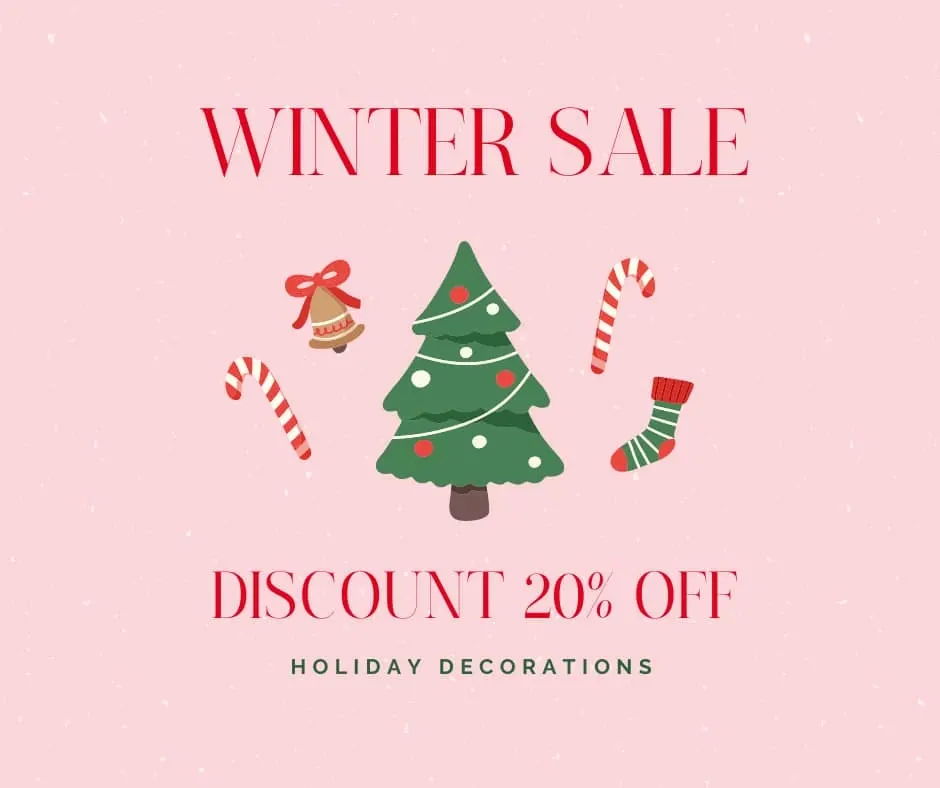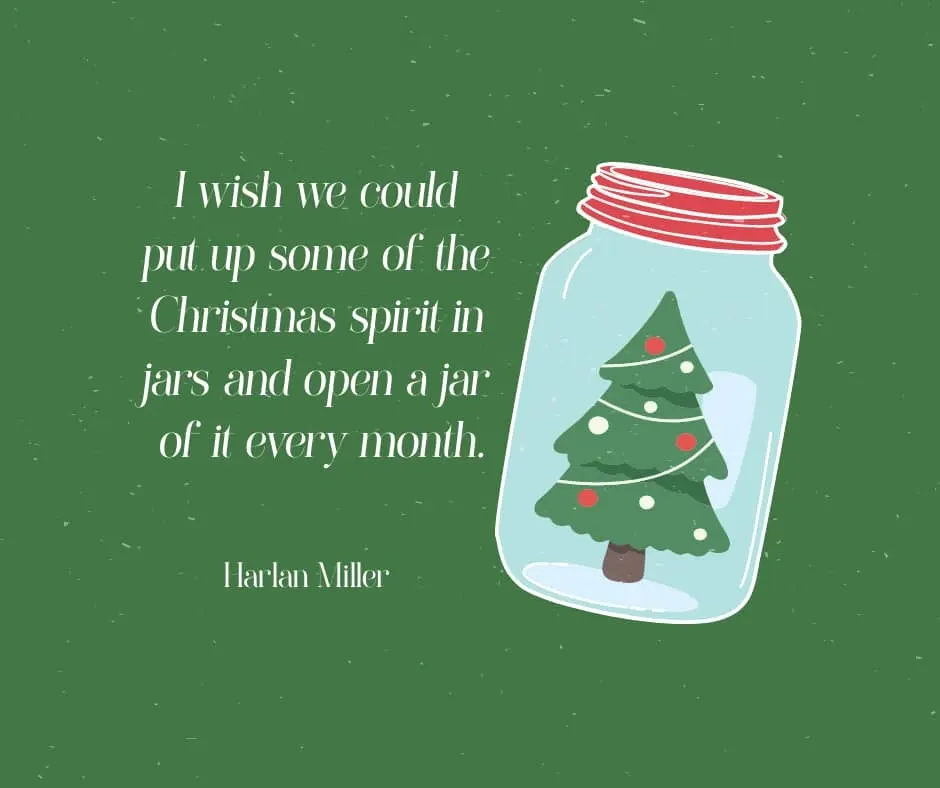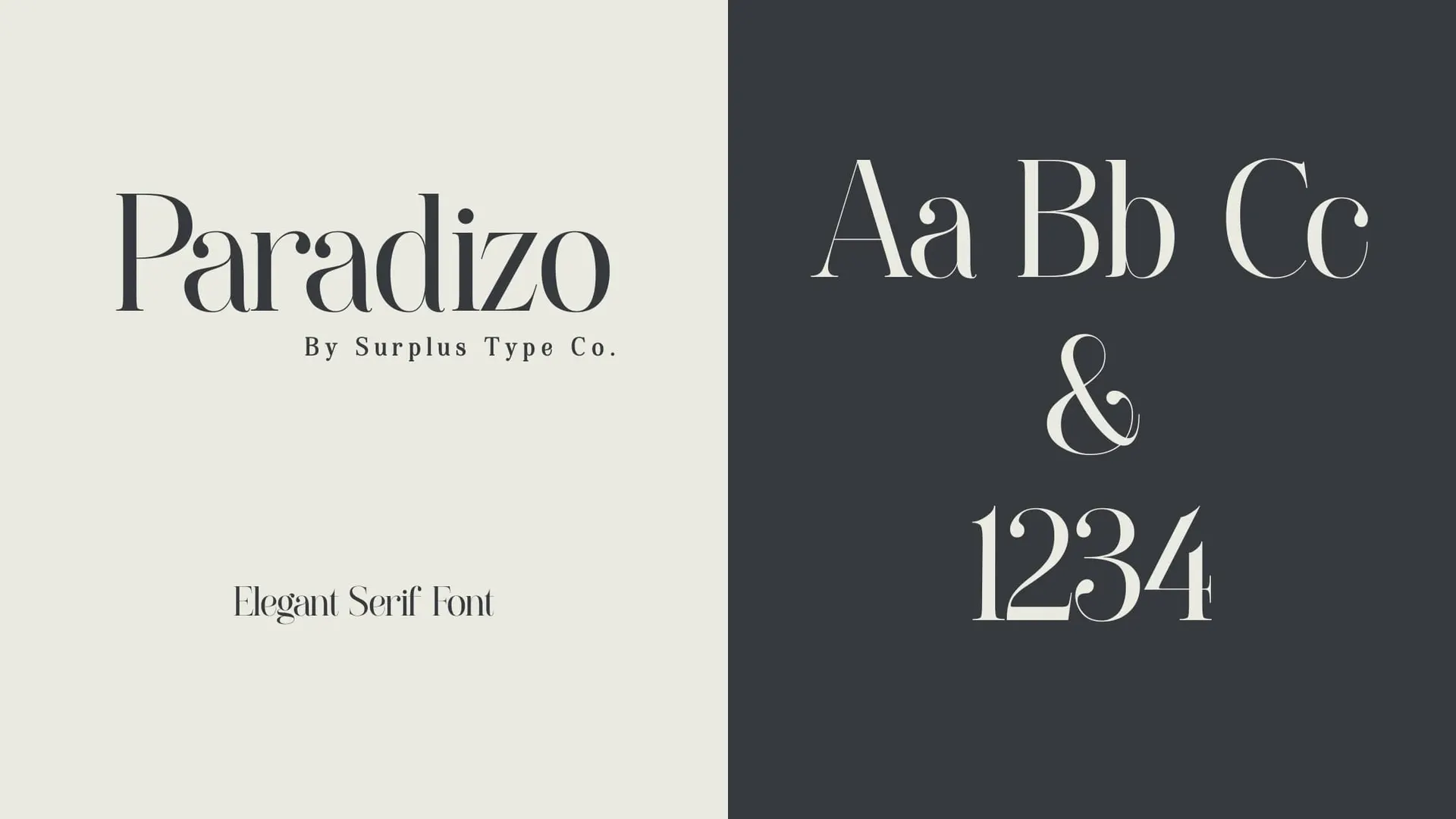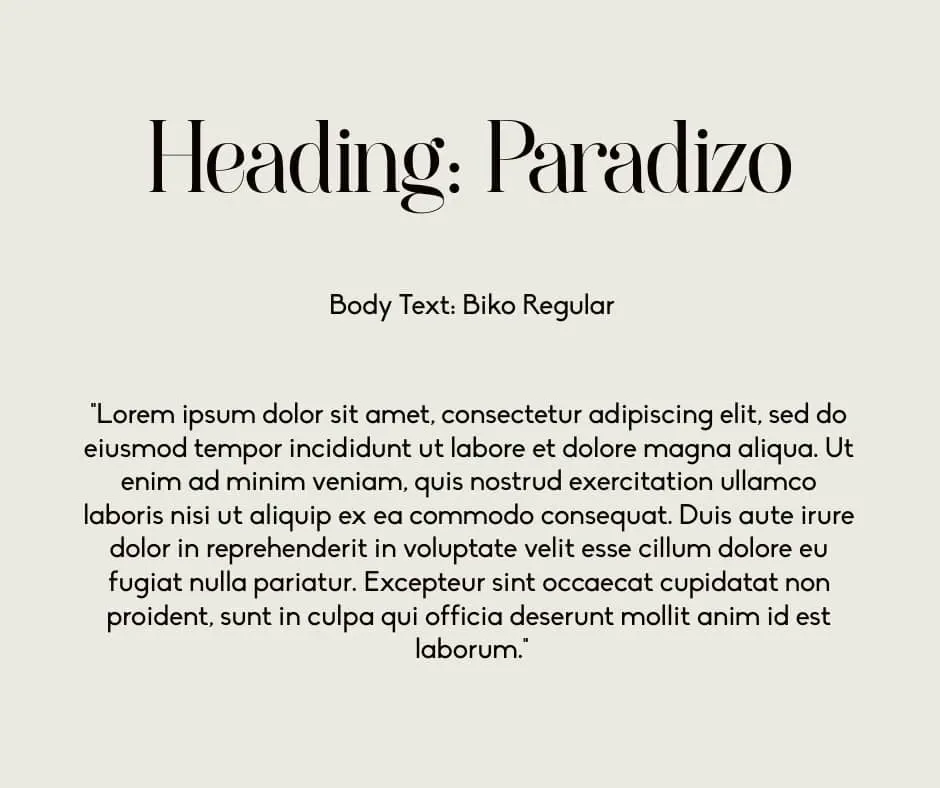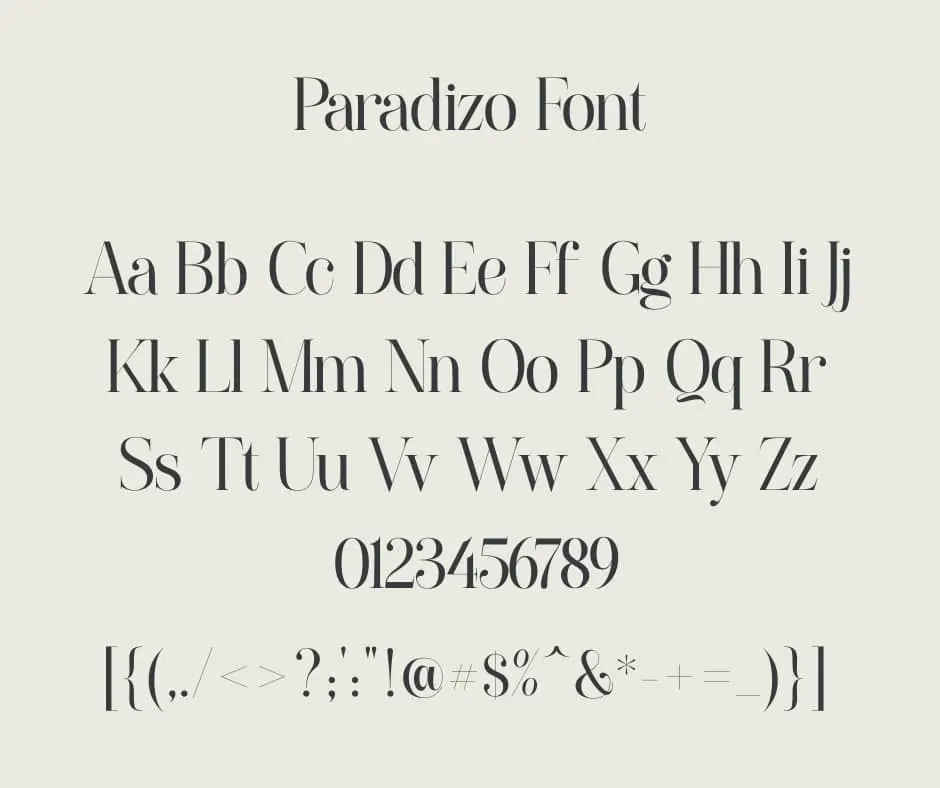
About Paradizo Elegant Serif Font
Paradizo is a wonderful blend of modern and traditional serifs, with smooth curves and refined letters. Thanks to Pixel Surplus, for the demo version of this elegant serif font. I’ve included a list of typefaces that look similar to Paradizo in the hopes that it would be useful.
Uppercase, Lowercase, Numeral, Punctuation, Multilingual, Alternates & Ligatures.
Paradizo font is a type of font that can easily be used in print design. It can be applied to headlines and captions to make them easier to read. It tends to be bolder and more legible on lower-resolution monitors, which makes this font a good choice for these purposes. So, Paradizo font is suitable for on-screen performance.
Paradizo Font Combination
Paradizo + Biko
Serif fonts have a more traditional feel to them, while sans-serif fonts are more modern and simple. However, serif fonts can become very difficult to read when they are combined with other serif fonts. For this reason, A modern Sans-serif like Biko will be a perfect pair of Paradizo font. You Can Use Paradizo for Big text and Biko for small text. Choice is yours.
Yes, Paradizo is a contemporary, unique, and elegant style that is suitable for print and on-screen usage.
Paradizo is a beautiful serif font with regular and oblique variations.